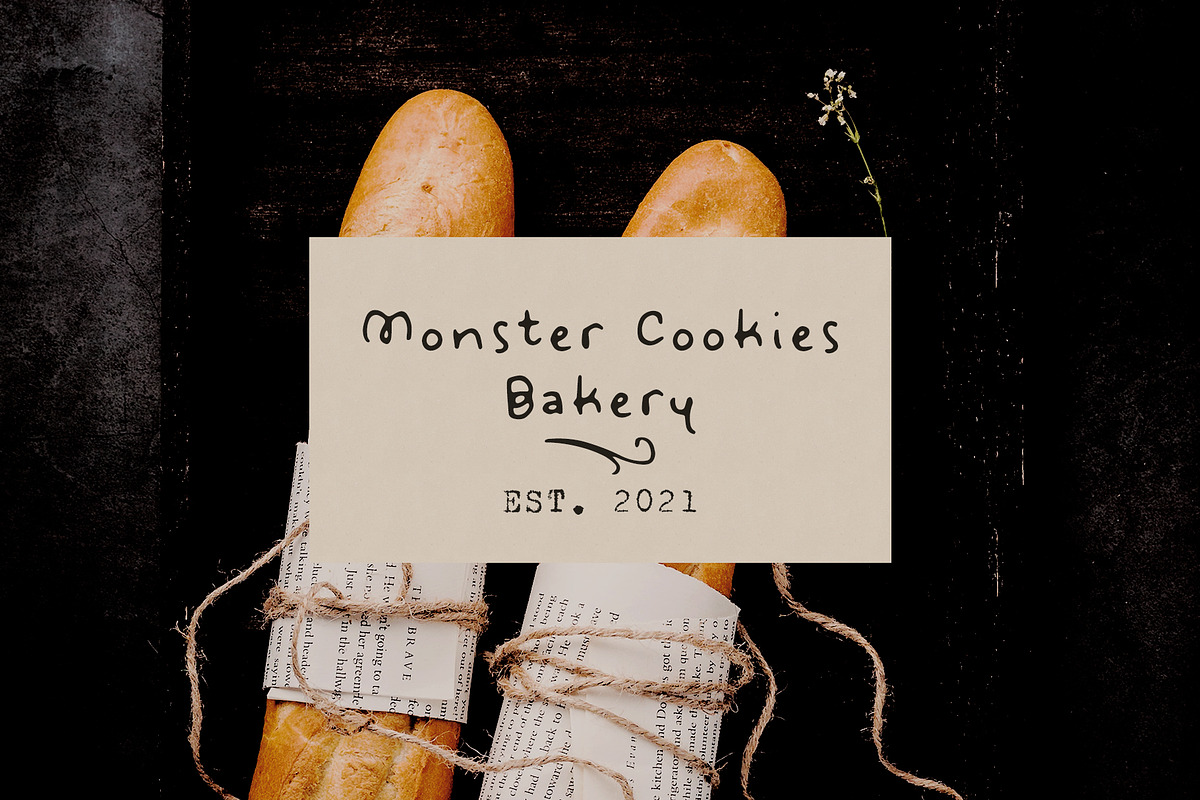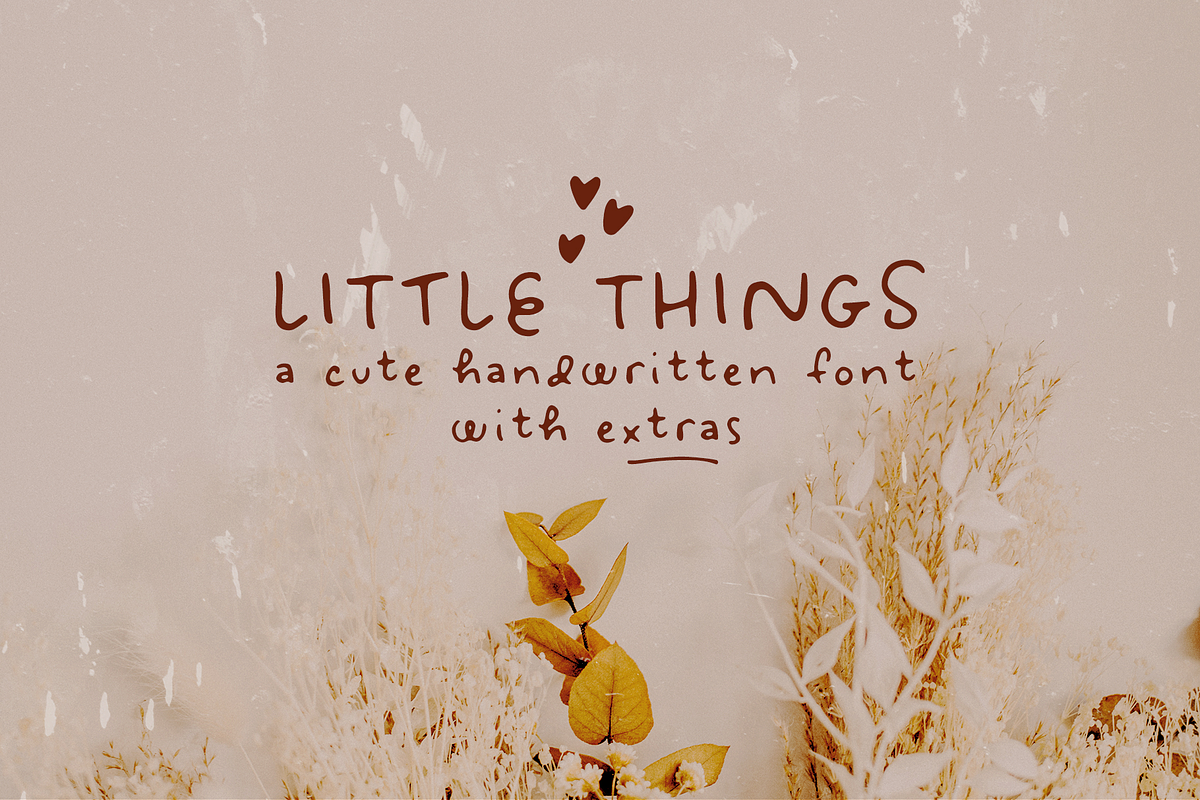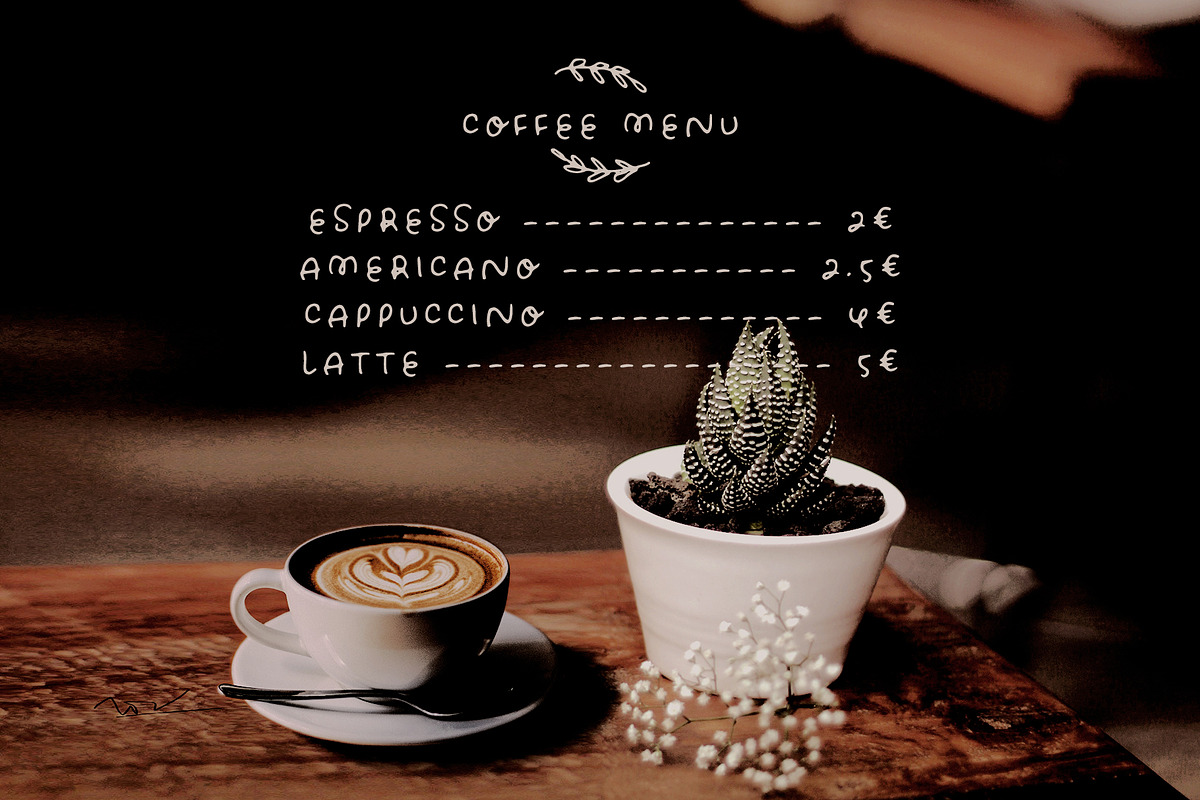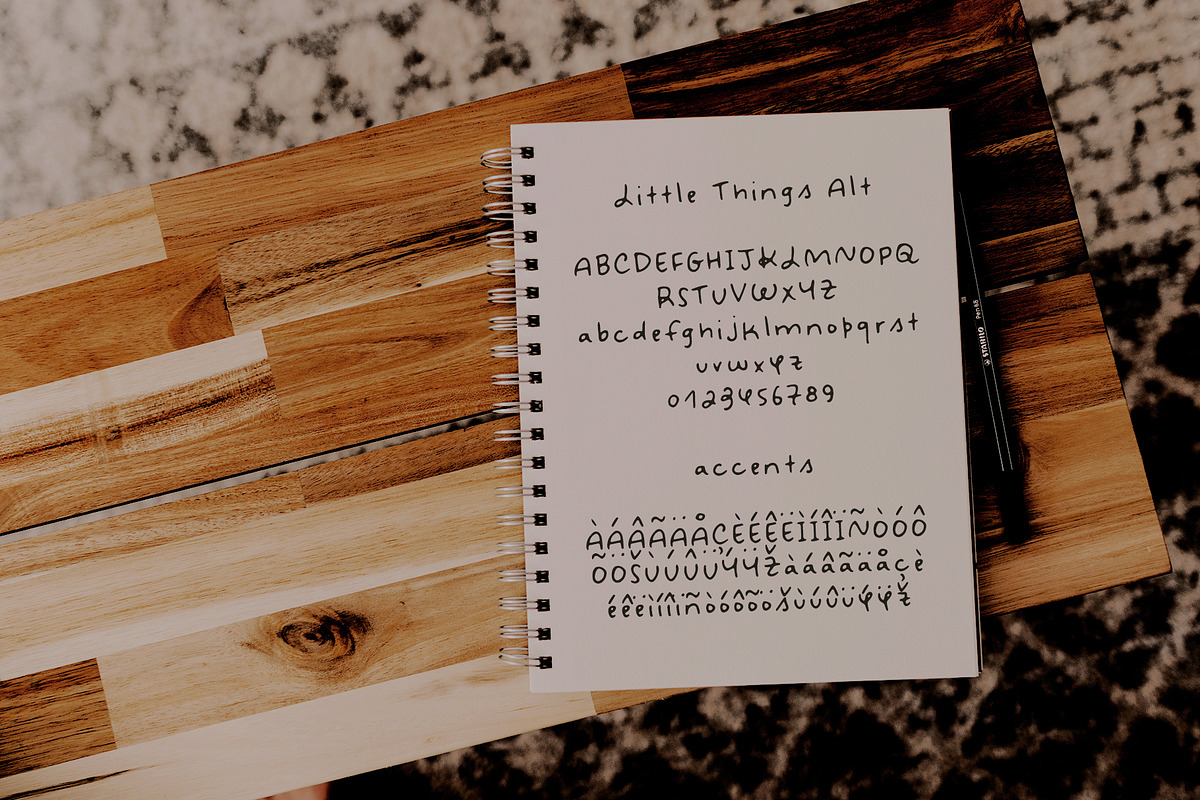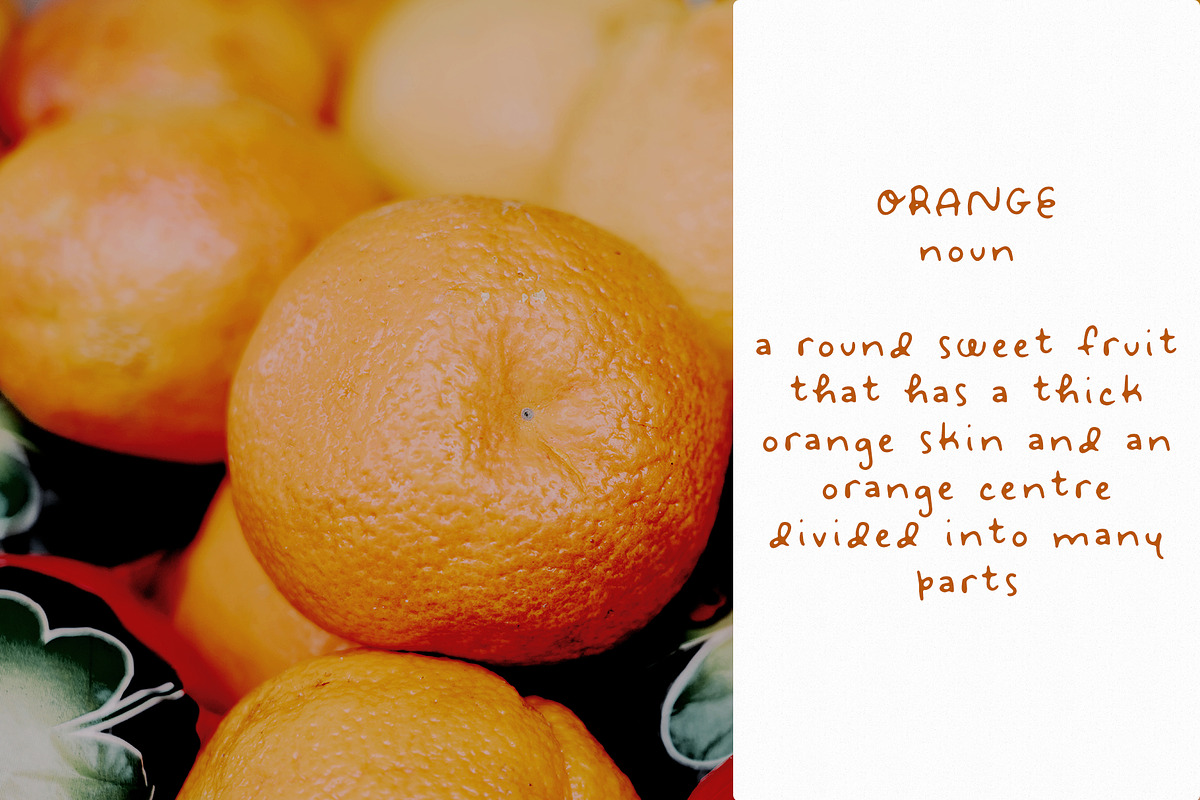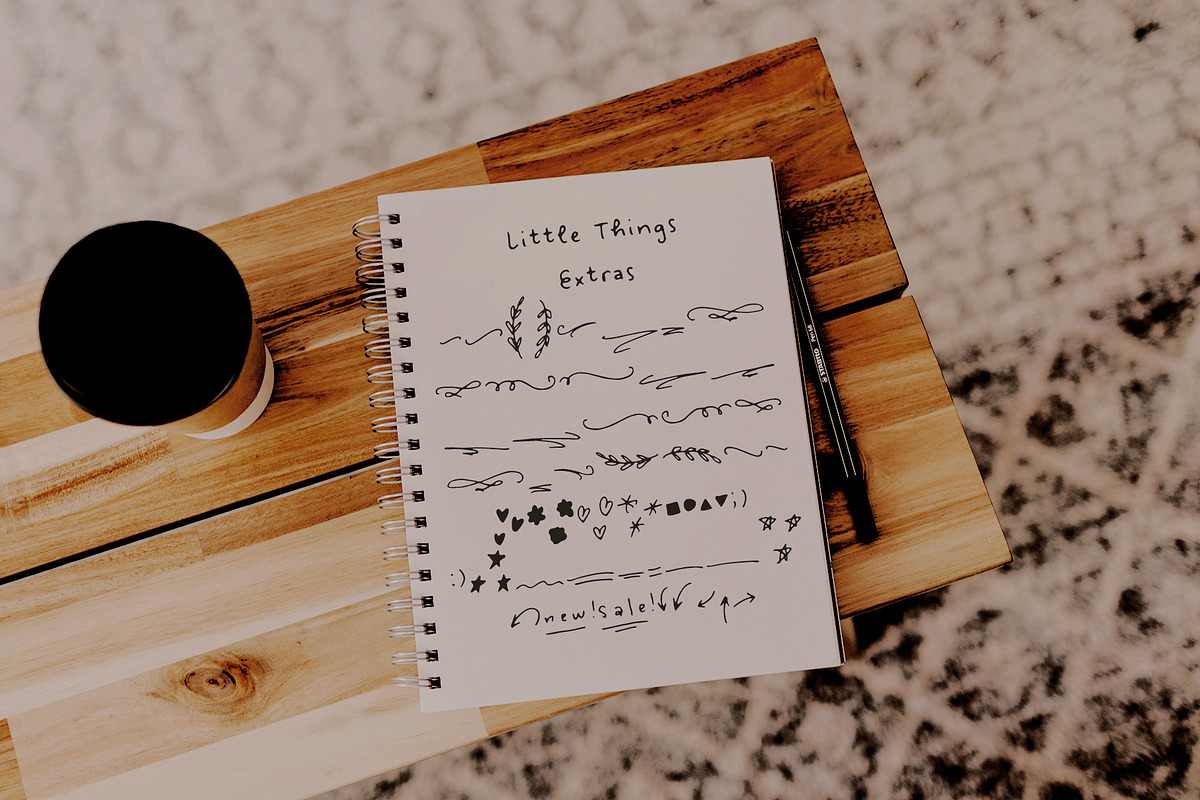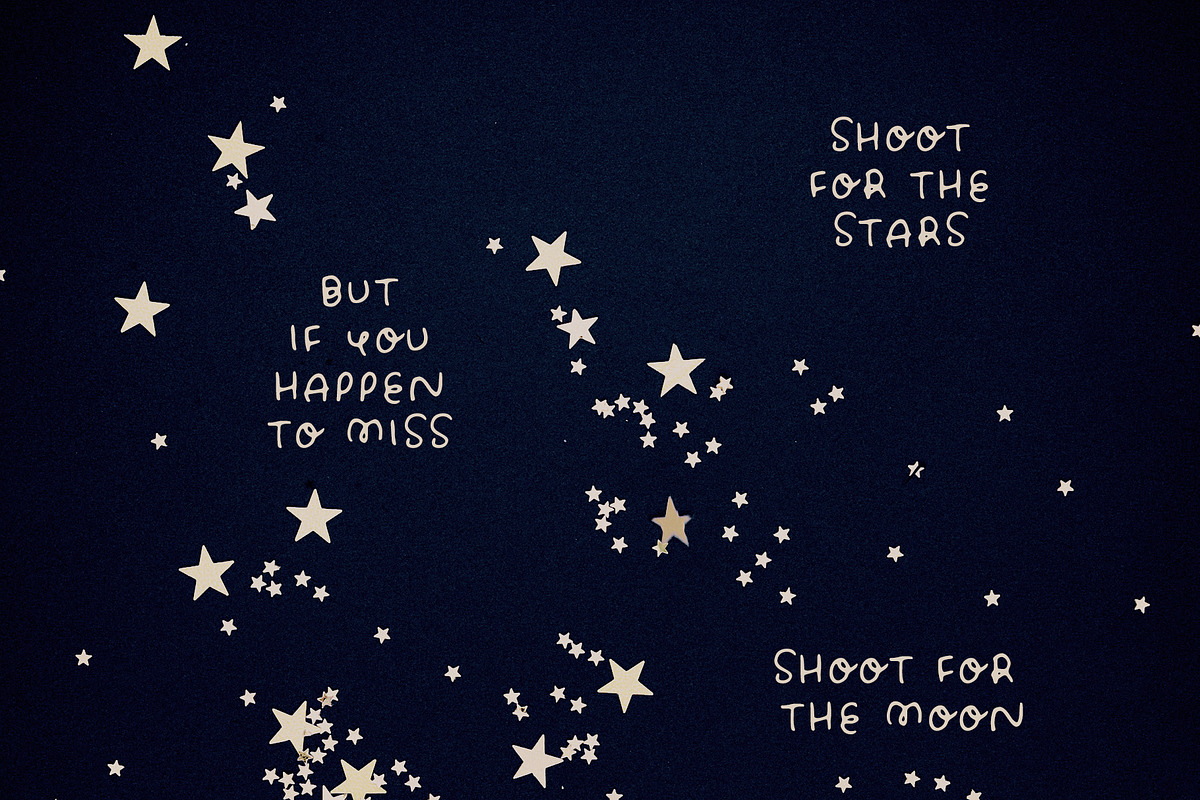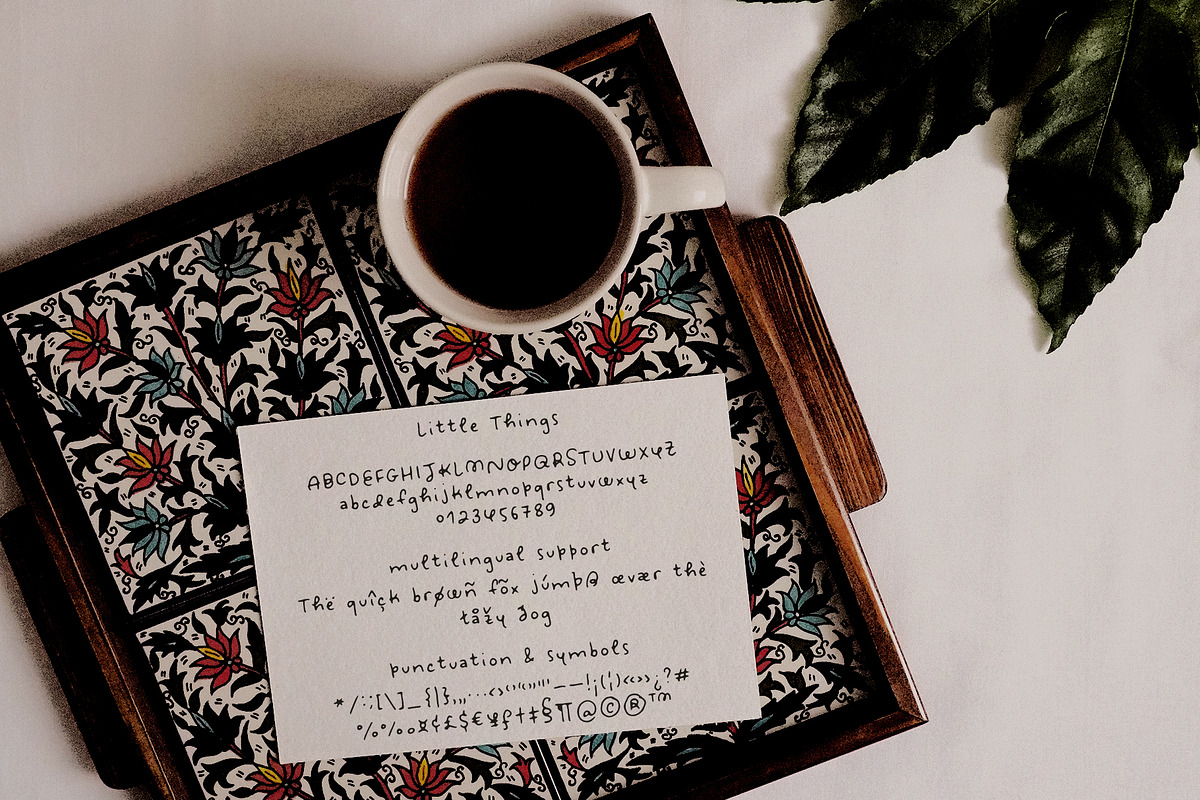
Little Things handwritten font
Little Things is a cute handwritten font with an alternates character set and lots of extras (underlines, doodles, arrows, words). Perfect to include in cute handmade designs, such as logos, packaging, prints and postcards, patterns, and social media posts.
Little Things includes:
- Little Things font
- Little Things alternates, with an extra character for 0-1, a-z, A-Z (and accents)
- Little Things extras, with swashes, underlines, doodles, arrows and words